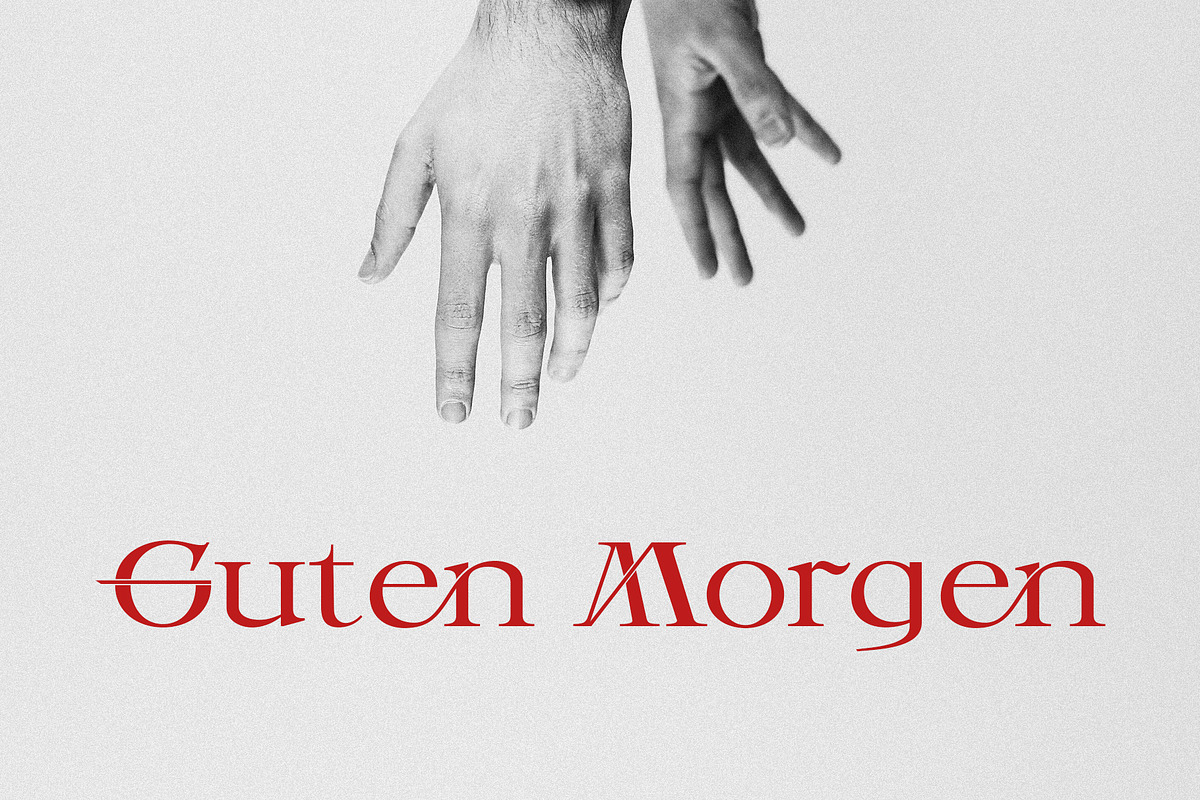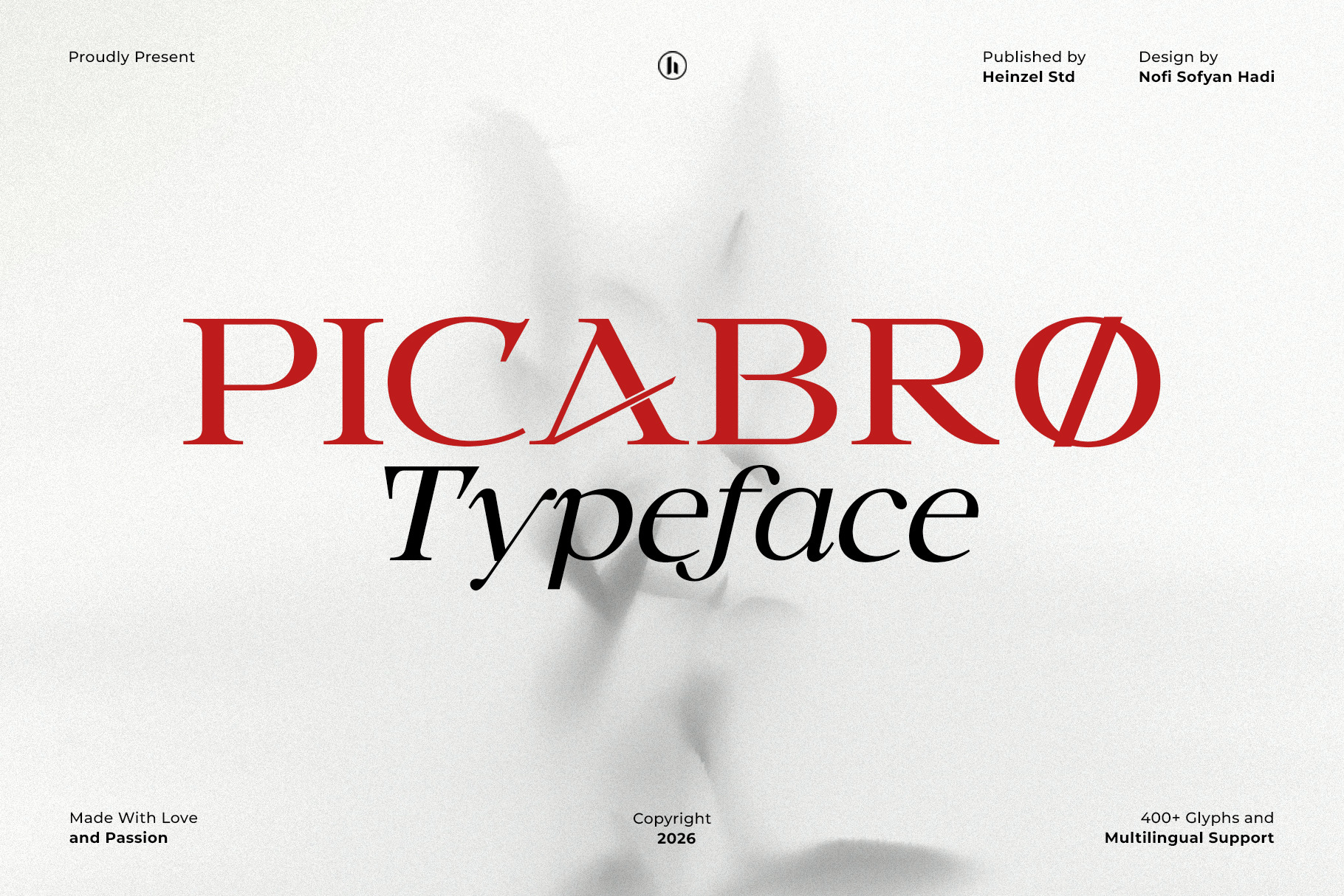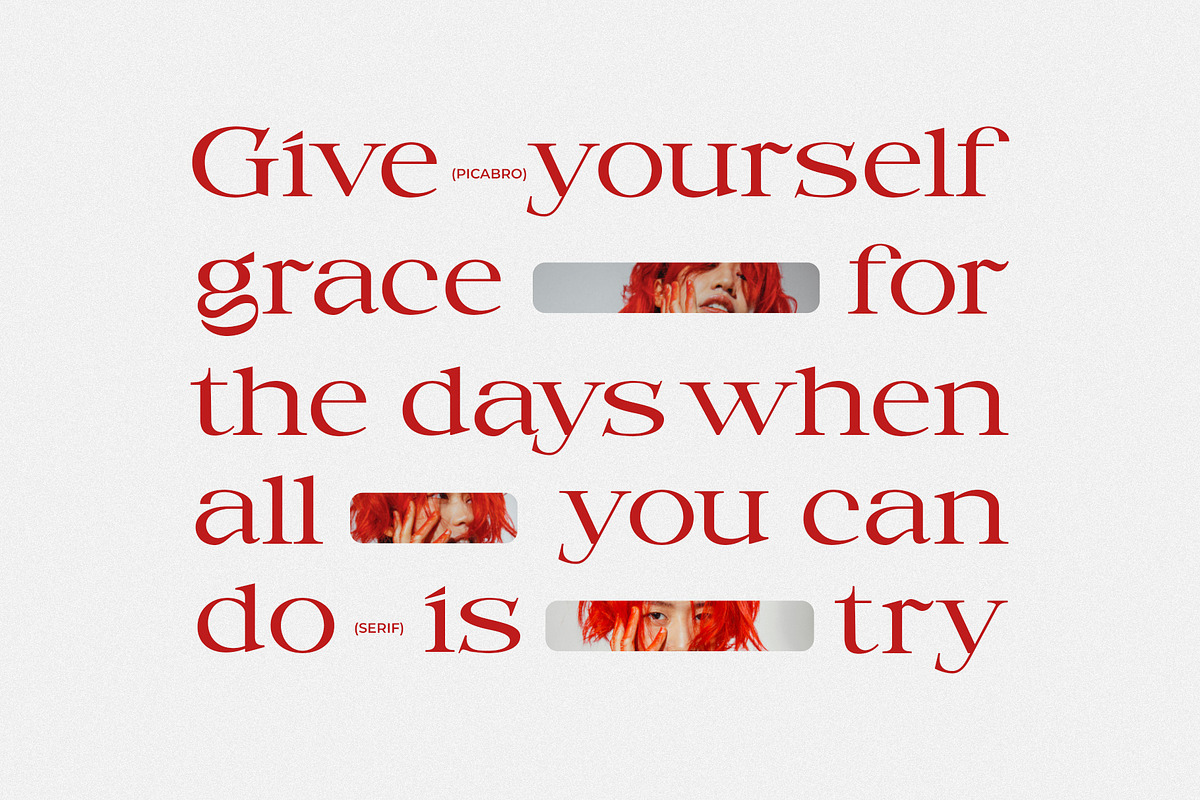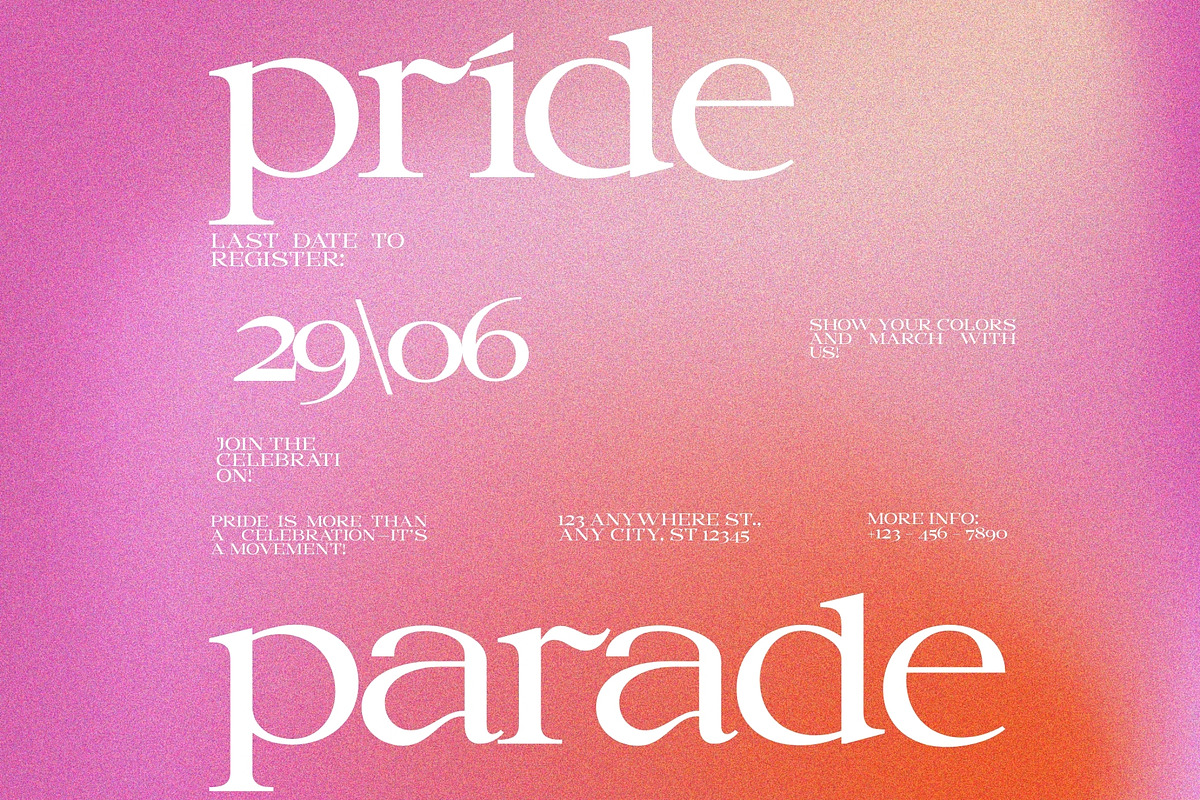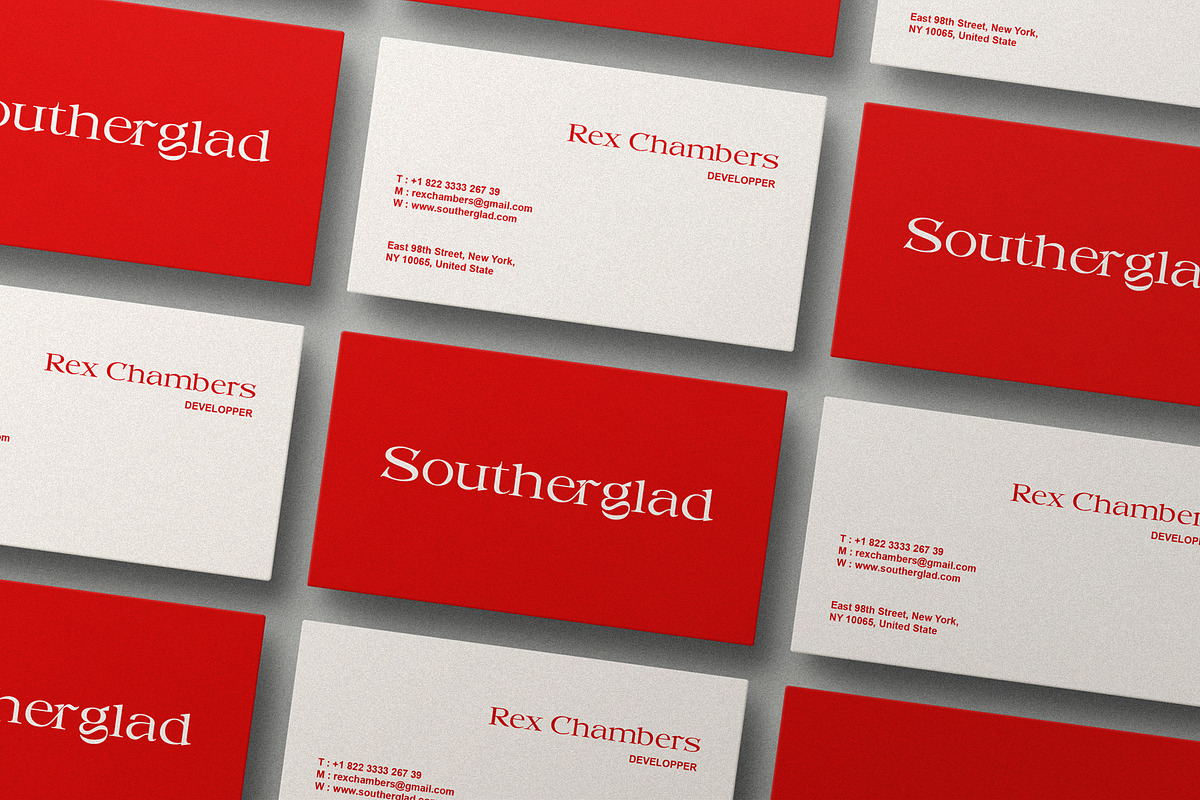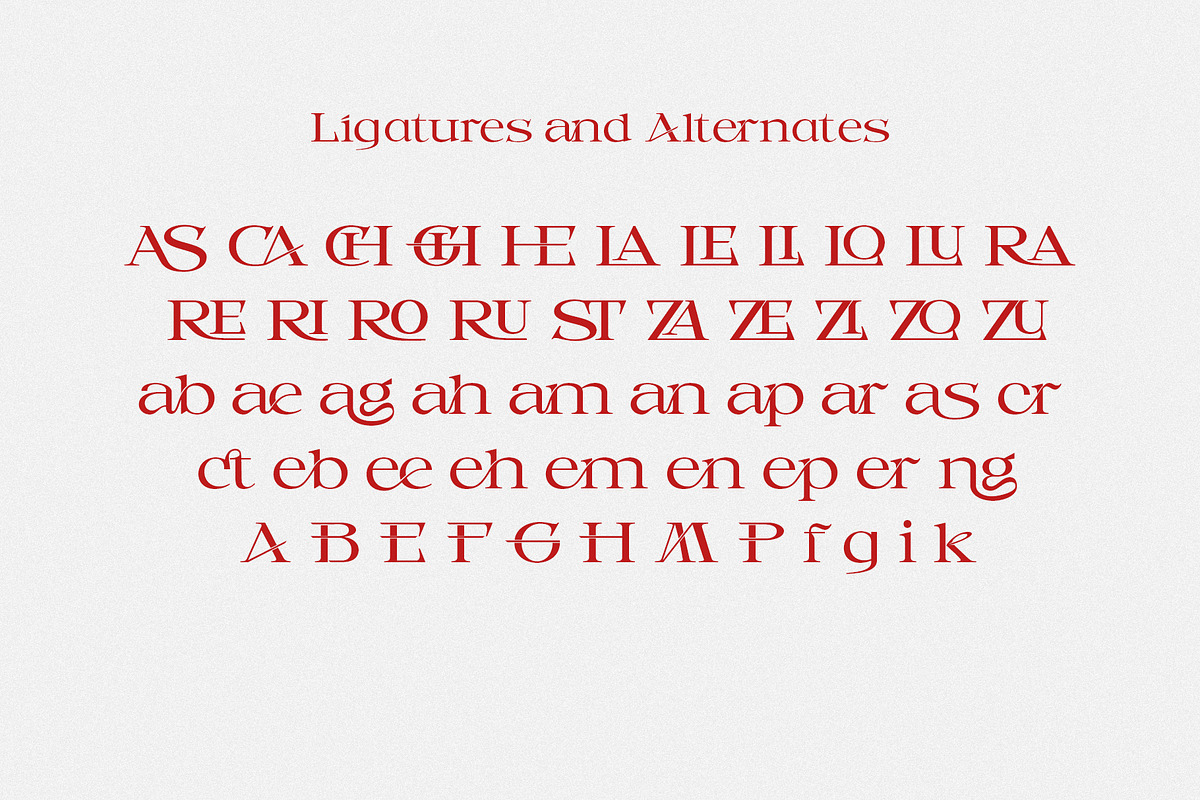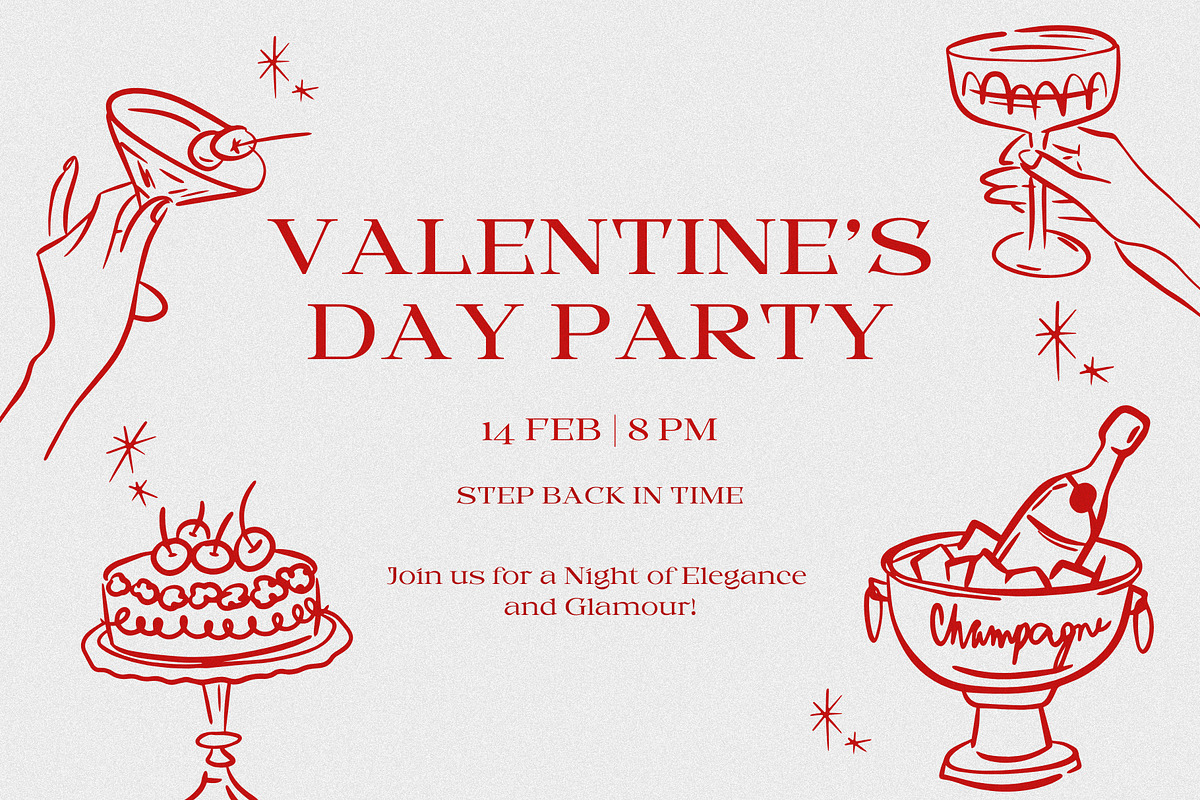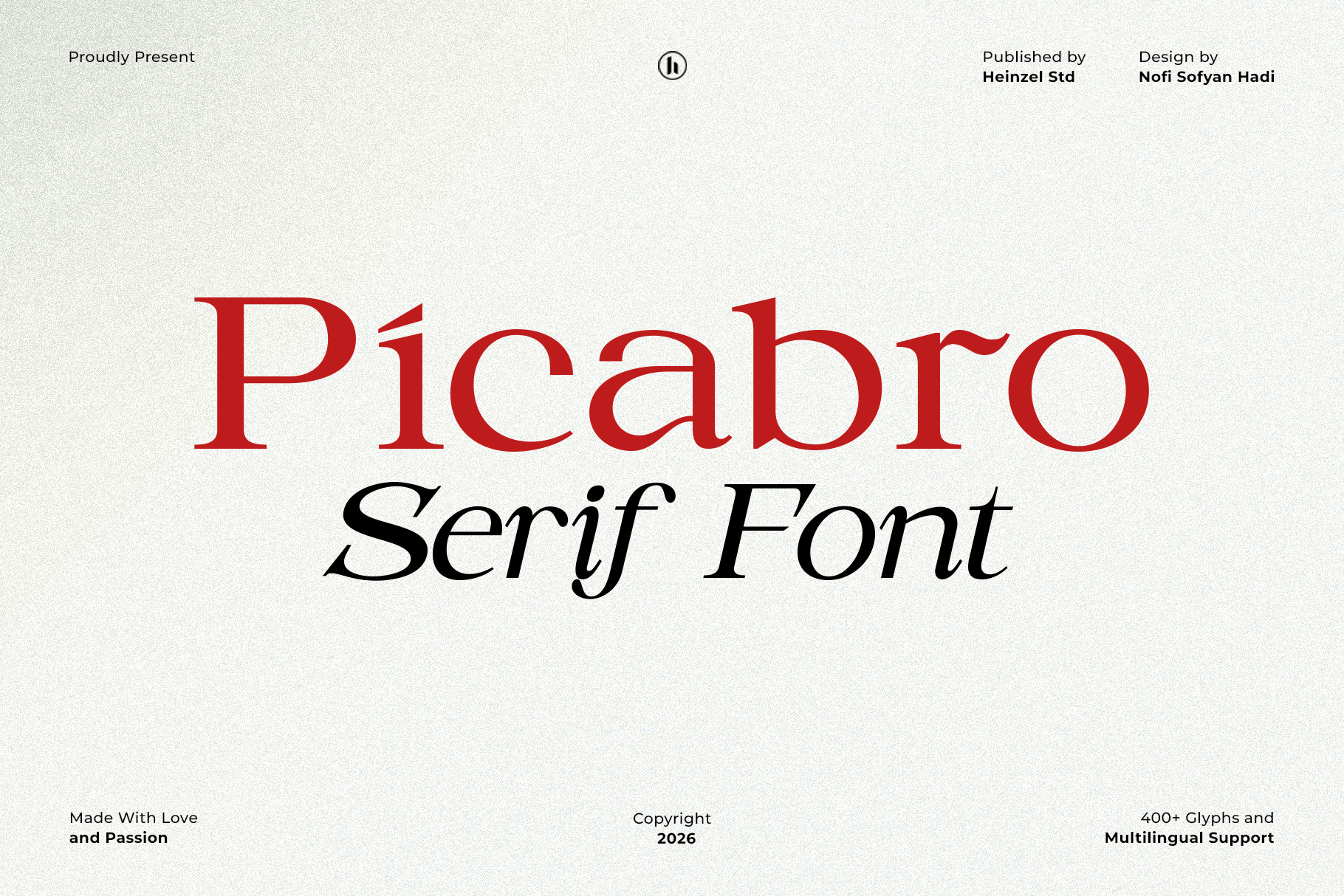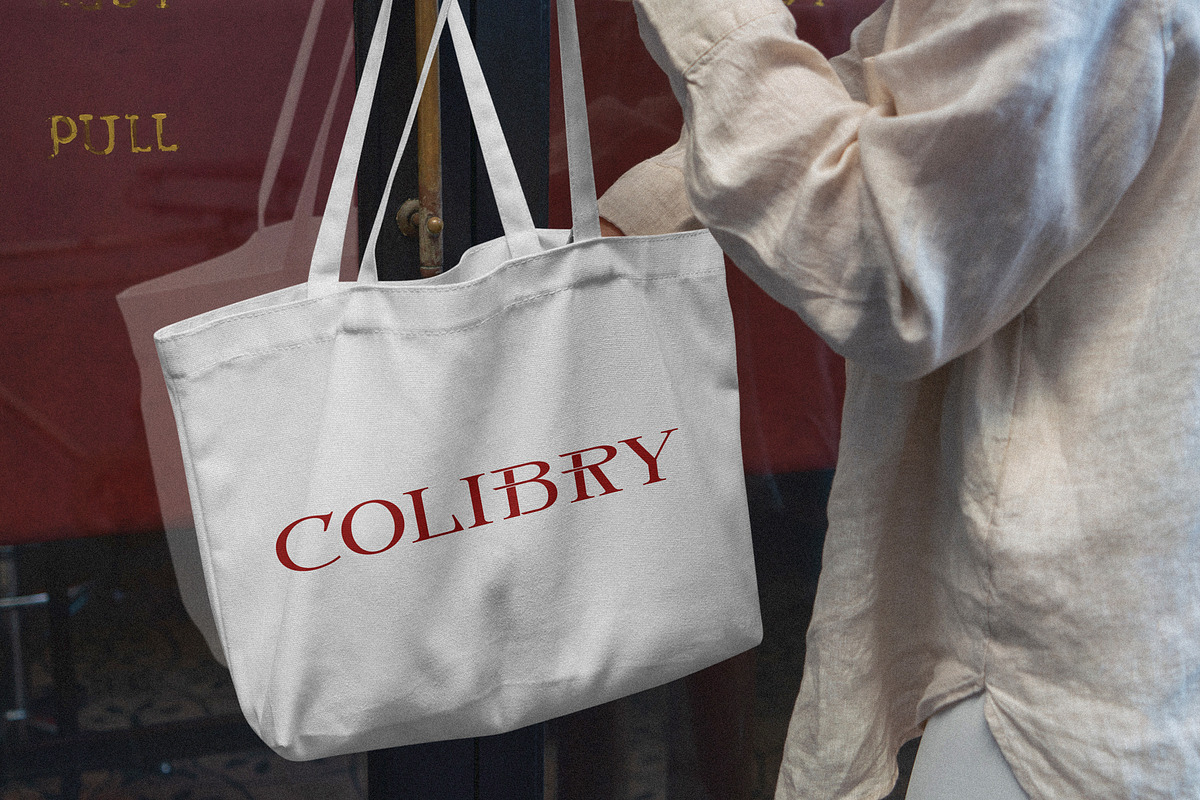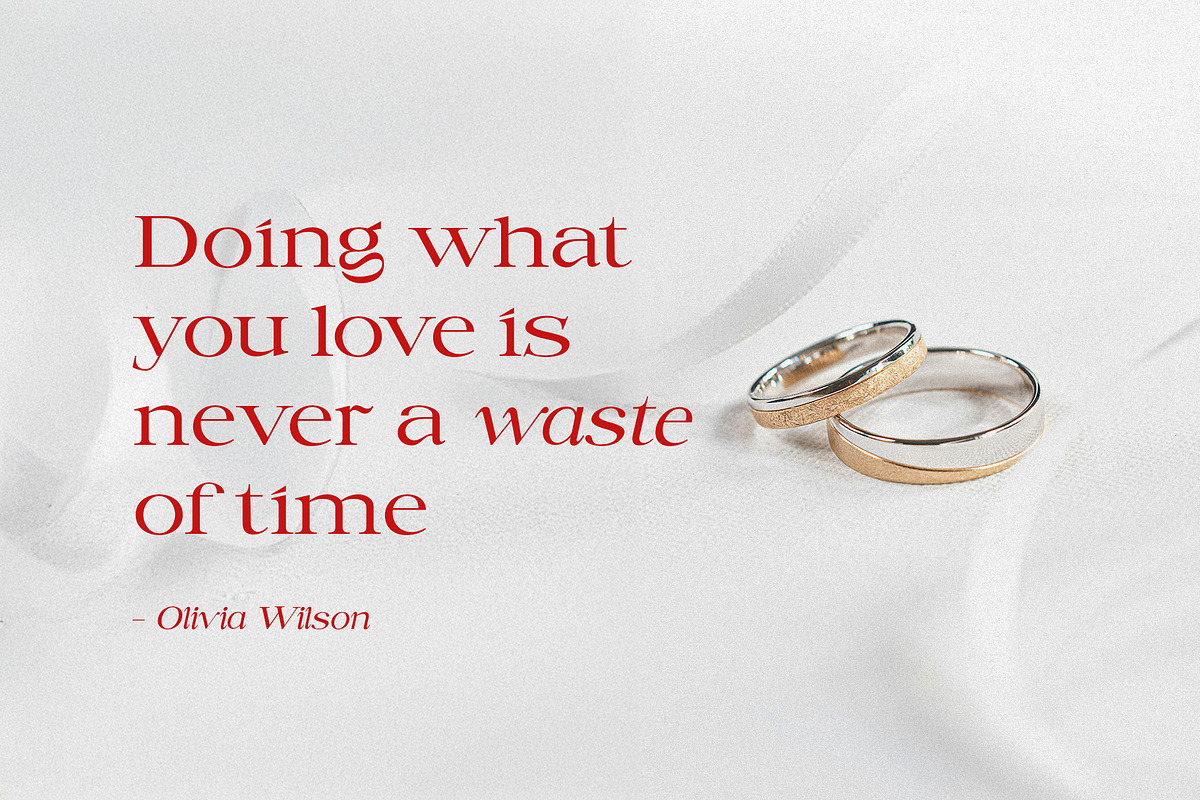
Picabro Serif Font
Picabro is a refined and contemporary serif font that blends timeless elegance with modern sophistication. Designed with high-contrast strokes, sharp serifs, and distinctive letterforms, Picabro delivers a luxurious and editorial feel. Its unique character details—such as the stylish diagonal accents and expressive curves—add personality while maintaining clarity and readability.
Perfect for branding, fashion editorials, luxury packaging, logos, headlines, magazines, invitations, and high-end marketing materials, Picabro Serif creates a bold visual impact without losing its classic charm. With 400+ glyphs and multilingual support, this typeface ensures versatility across global design projects.
Whether you're building a premium brand identity or crafting elegant typography layouts, Picabro Serif offers a powerful combination of style, confidence, and sophistication.